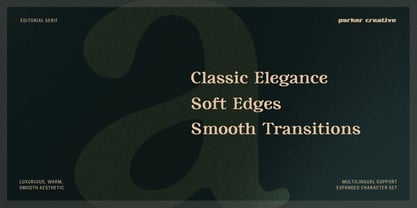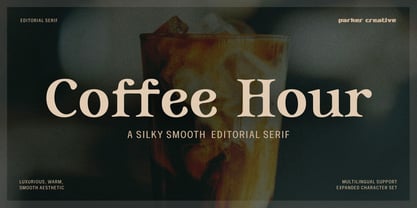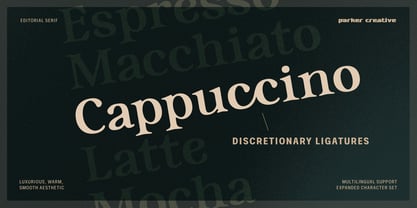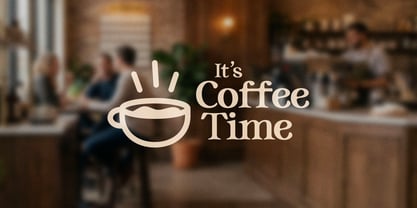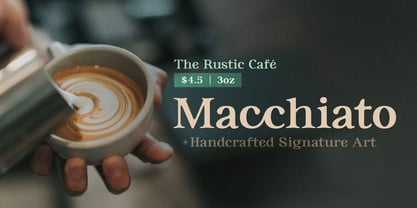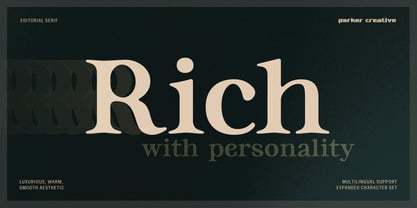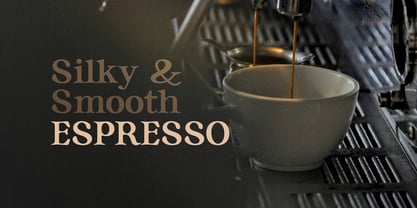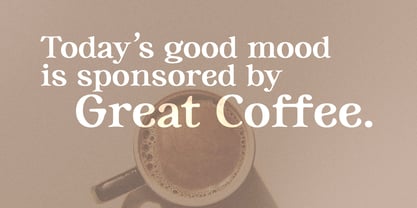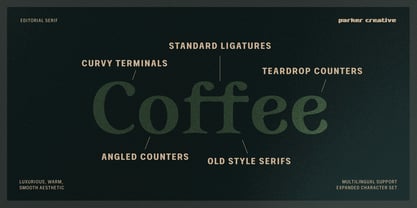
Coffee Hour
Die Schriftfamilie Coffee Hour wurde von Alan Parker entworfen und von Parker Creative veröffentlicht. Coffee Hour enthält 1 Stile. Mehr über diese Familie
Introducing Coffee Hour, a handcrafted typeface that captures the spirit of the modern café culture. Coffee Hour is a silky smooth editorial serif, designed specifically to bring a luxurious and warm aesthetic to your brand.
Coffee Hour blends elegant attributes like old style serifs and angled counters with signature modern curvy terminals and smooth shape transitions. The result is a balanced display of timeless presence and bright personality.
Included in the typeface are both standard and discretionary ligatures to give your branding a truly custom, hand-lettered feel. Characters ‘cc’, ‘gg’, ‘ft’, ‘ff’ create a beautiful look to words like ‘Cappuccino’ and ‘Affogato Al Caffè’.
Also included in the typeface is an expanded character set for multilingual support, including additional symbols, punctuations, and marks.